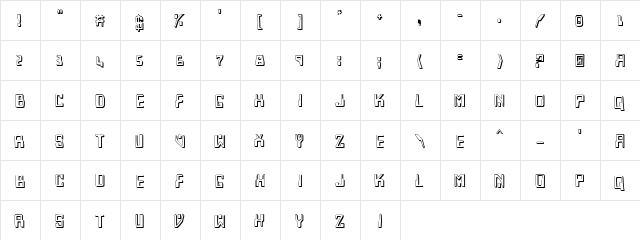
Homemade Robot Shadow Shadow
Homemade Robot Shadow brings ornamental detail and strong personality to headlines and identities, where visual impact matters more than quiet functionality.
Font Pairing: Pair with a clean neutral sans-serif for body copy to let Homemade Robot Shadow's character lead without overwhelming the composition.
Pro Tip: Use Homemade Robot Shadow exclusively at display sizes — it was designed to be seen, not read at length. Let a neutral companion handle body copy.